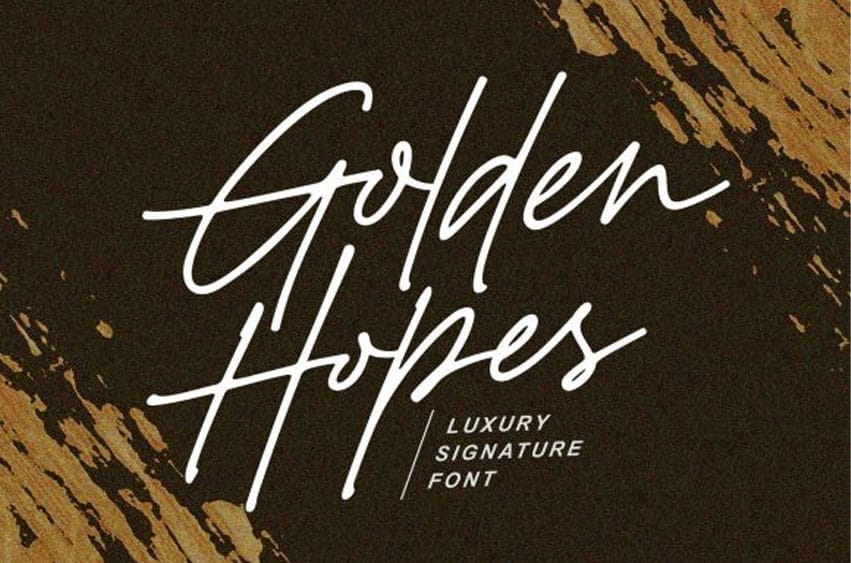
Golden Hopes Font
Golden Hopes Font is a dazzling script font. This font is neatly crafted and highly detailed. Whatever the topic, this font will be a wonderful asset to your font library, as it has the potential to enhance any creation.